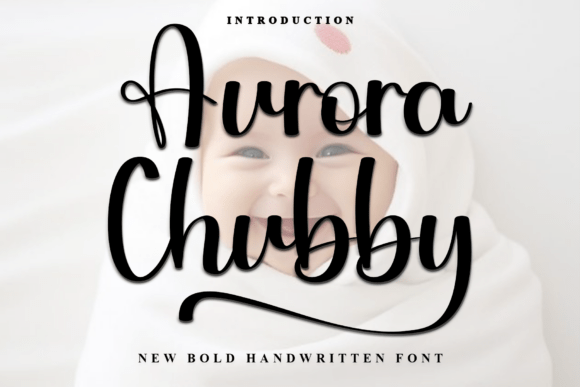
The Designer’s Delight: Aurora Chubby Font
I’ll never forget the time I was working on a project for a client’s birthday party invitation. I had all the design elements in place – the colors, images, and layout – but something was missing. The font I was using just didn’t feel right. It was too formal, too stiff. I needed something that would convey the playful, celebratory vibe of the party. That’s when I stumbled upon the Aurora Chubby font. It was like a breath of fresh air – warm, friendly, and playful. The round, chubby strokes instantly added a relaxed and approachable feel to my design, and I knew I had found the perfect fit.
- ✨ The casual and creative vibe of Aurora Chubby makes it perfect for personal projects, invitations, and social media graphics.
- ✅ The font’s charming, hand-drawn aesthetic adds a fun and unique touch to any design.
- 💕 The warmth and friendliness of the font make it perfect for designs that need a personal touch.
⚠️ While Aurora Chubby is a wonderful font, it’s not suitable for very formal or professional designs. Its playful nature might not be the best fit for corporate branding or official documents. 🤔 Additionally, some users might find the font a bit too ’rounded’ or ‘chubby’ for their taste, but that’s part of its charm.
- Experiment with the font’s OpenType features, such as stylistic alternates, to add more personality to your design.
The Story Behind Aurora Chubby
Aurora Chubby was designed with the intention of creating a font that would bring warmth and friendliness to any design. The designer, inspired by the beauty of hand-drawn typography, wanted to create a font that would feel approachable and playful. The result is a font that is perfect for personal projects, invitations, and social media graphics.
Q: Is Aurora Chubby suitable for body text?
A: While Aurora Chubby is a beautiful font, it’s not recommended for body text due to its playful and decorative nature. It’s best suited for headlines, titles, and short paragraphs.